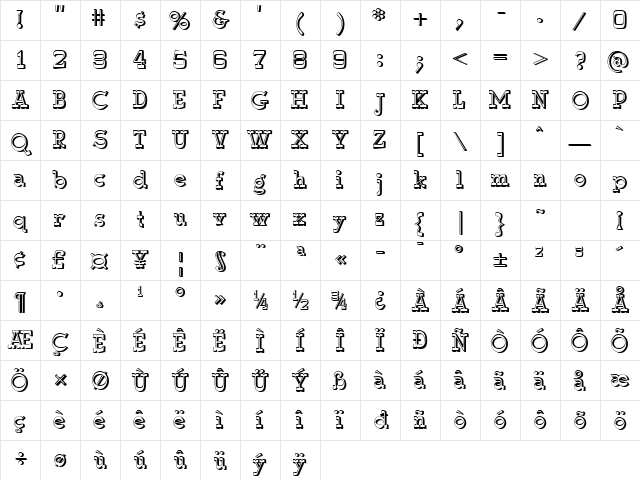
Complete WyomingMacroniShadRight Regular glyph index. Displaying only characters natively supported by WyomingMacroniShadRight Regular font.
WyomingMacroniShadRight is a composed and adaptable typeface that performs quietly and consistently across a wide range of design contexts.